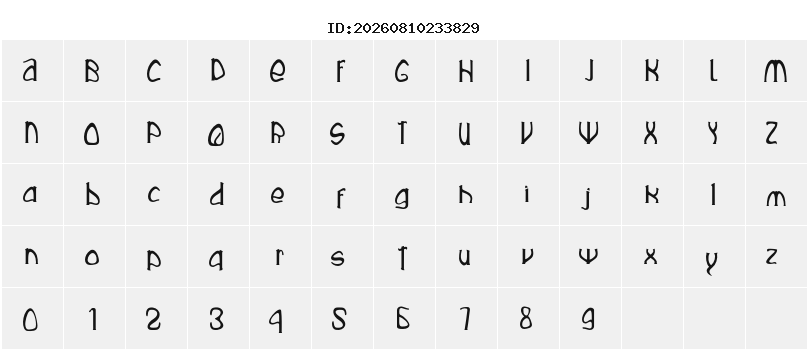
Rustika Preview
• Font Name: Rustika
• Full Font Name: Rustika
• Designer: Alberto Villanueva
• Manufacturer: Alberto Villanueva
About Rustika.otf
Rustika.otf is a modern, elegant sans-serif font designed for ultimate readability and visual harmony. Perfect for branding, headlines, web design, and print materials.